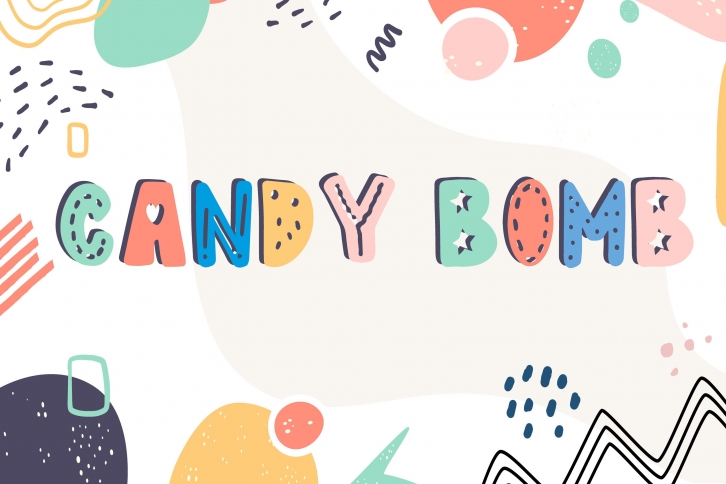
Candy Bomb is a trendy and unique font with an authentic style. It was designed by The Gelato and it's a great choice for creative people who need such a font. It was released on August 17, 2020 and the file size is 8.22 MB. Candy Bomb will add an organic vibe to any design idea!